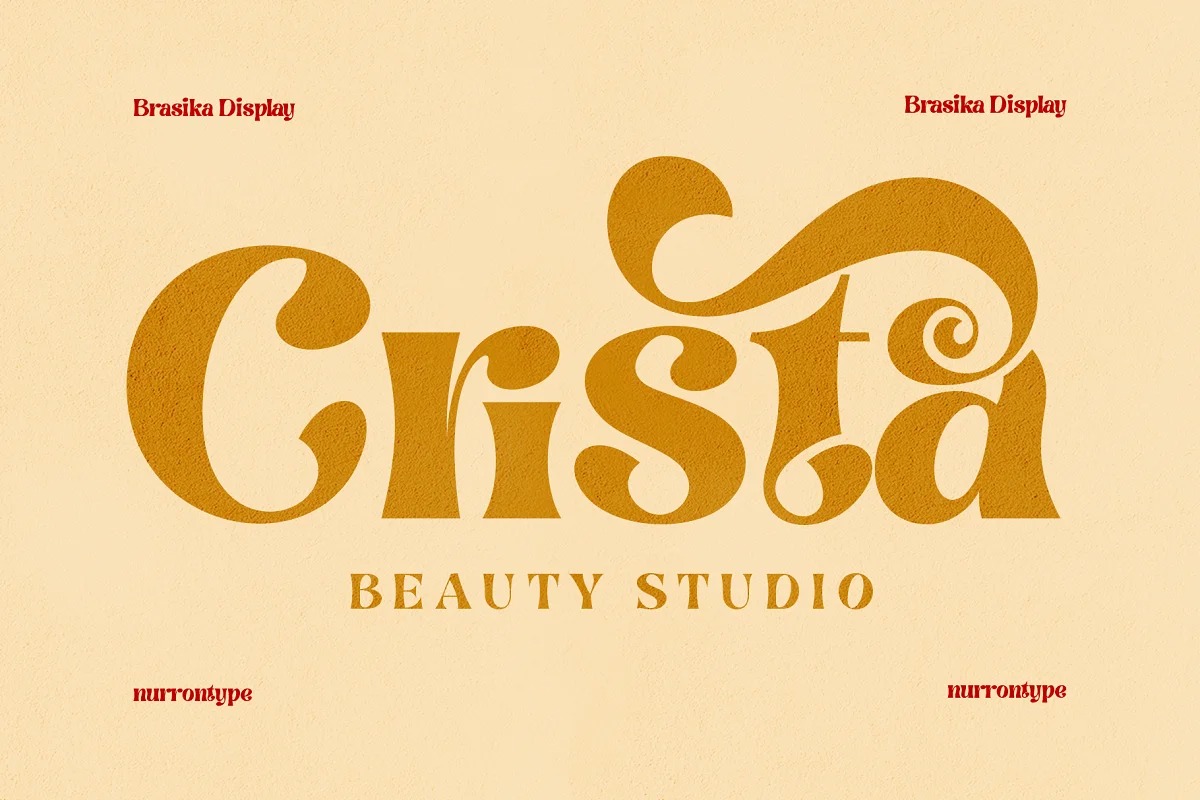
Brasika Font
Brasika Serif Font is a vintage serif typeface with beautiful ligatures, Unique alternative, multilingual support with perfect kerning. It was made with the intention to be used for your personal branding. But, this works well for many applications. Everything from personal branding, logos, name tag, handwritten quotes, product packaging, merchandise, social media & greeting cards. photography signature, advertising could benefit from this collection of these bold signature fonts.